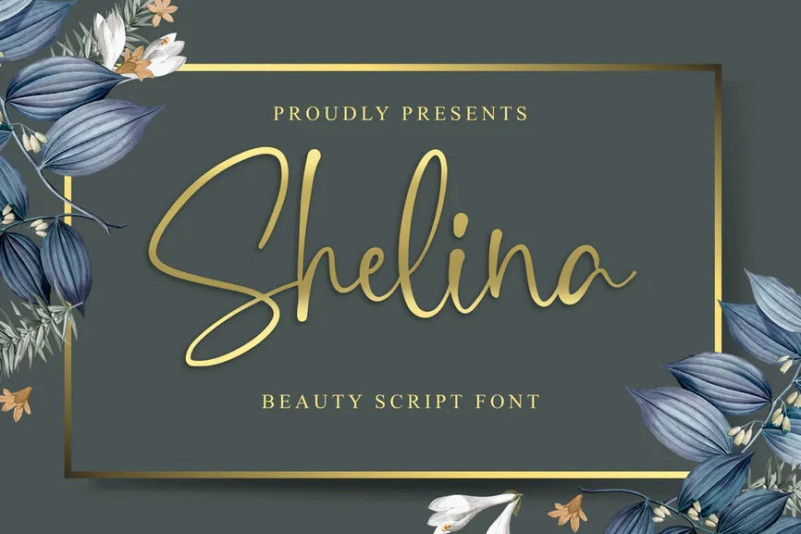
Shelina Font
Introducing of our new product the name is Shelina Beauty Script Font. Shelina inspired by Beauty calligraphy style this font is a fun theme very good for signature, poster, fashion, wedding, branding etc